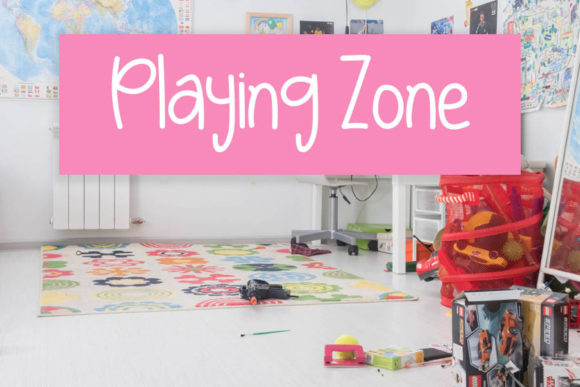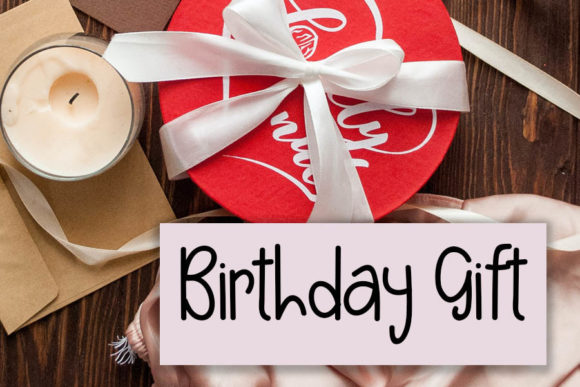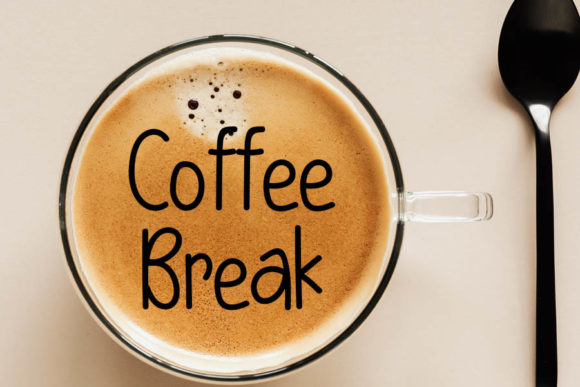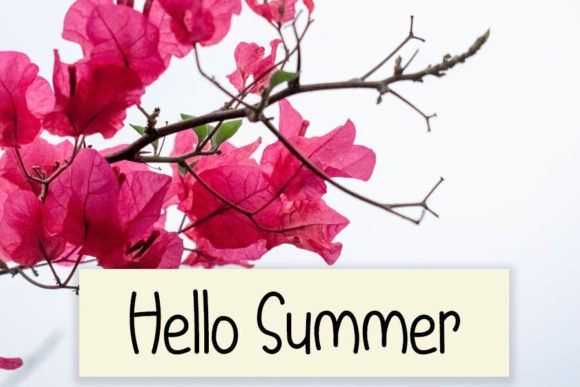
Babymoon Font
About Babymoon Font
Babymoon is a charming and friendly handwritten font that adds a playful and quirky touch to your designs. With its unique style and personality, it is well-suited for various applications such as logos, branding, posters, and crafty DIY projects.
The Babymoon font captures a sense of whimsy and fun with its hand-drawn letterforms and playful curves. It has a casual and relaxed appearance, making it versatile for a wide range of design projects. Whether you’re creating a logo for a creative brand, designing posters for an event, or working on DIY crafts, Babymoon adds a touch of charm and character.
The irregular strokes and slightly uneven lines of Babymoon give it an authentic handmade feel. It conveys a sense of warmth and approachability, making it appealing for brands and designs that aim to connect with their audience on a personal level.
When used in branding and logo design, Babymoon adds a friendly and inviting vibe. It can bring a touch of whimsy and playfulness to your brand identity, making it memorable and distinct. It’s also a great choice for packaging designs, creating a delightful and handmade look.
In poster design, Babymoon can be used to add a creative and artistic flair. Its quirky style adds visual interest and catches the viewer’s attention. Whether you’re promoting an event, creating an inspirational quote poster, or designing a playful advertisement, Babymoon can help you achieve a unique and eye-catching design.
For crafty DIY projects, Babymoon provides a handmade touch that adds personality and creativity. Whether you’re creating handmade cards, scrapbooking, or designing labels and tags, Babymoon brings a sense of joy and playfulness to your creations.
Overall, Babymoon is a cute and friendly handwritten font that brings a playful and quirky vibe to your designs. Its versatility makes it suitable for logos, branding, posters, and crafty DIY projects. With Babymoon, you can create designs that stand out, connect with your audience, and bring a touch of handmade charm to your projects.